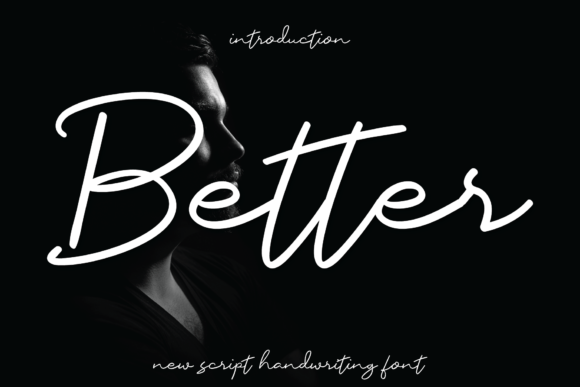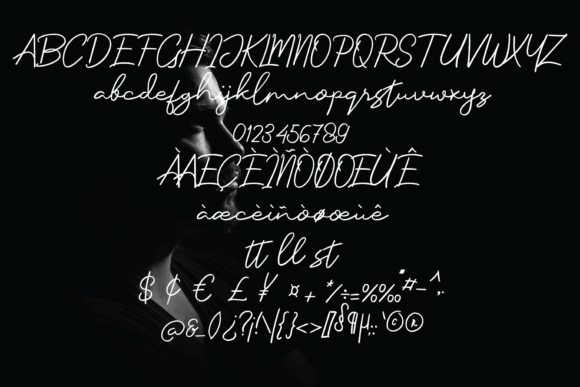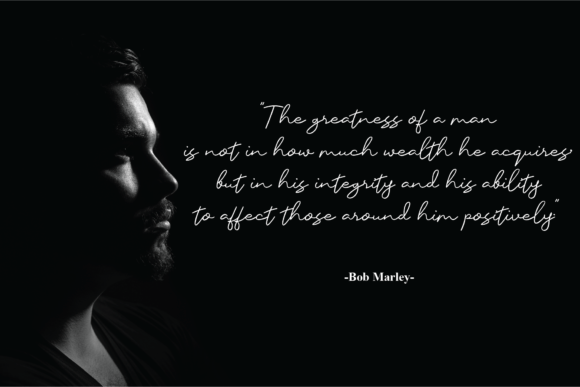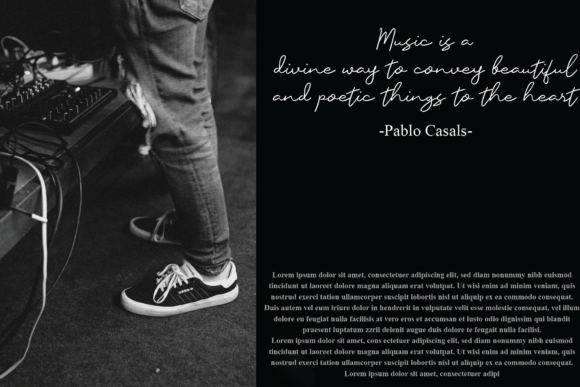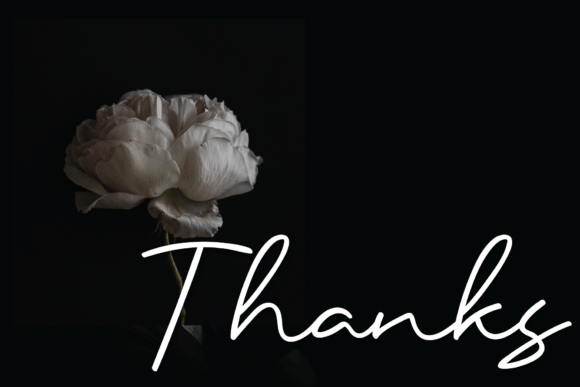
Better Font
About Better Font
Better, an exquisite handwritten font, embodies elegance with a beautiful and modern aesthetic. Its graceful strokes and contemporary appeal make it a captivating choice for a spectrum of design applications. Particularly stunning when employed in wedding invitations, thank-you cards, and greeting cards, Better also lends sophistication to business cards, logos, product designs, advertisements, and quotes. Its unique handwritten touch elevates every design, adding a layer of warmth and individuality.
The font’s beauty lies in its ability to seamlessly adapt to diverse design needs. Its versatility shines through, whether applied to formal occasions like weddings or to more casual contexts such as business branding. Better’s inherent charm transcends traditional boundaries, making it a versatile asset in the creative toolkit.
What sets Better apart is not only its elegance but also the nuanced hand strokes that it presents. The font’s design incorporates varied and interesting details, including lines, fields, and stunning alternate characters. This thoughtful craftsmanship provides designers with a rich palette to play with, allowing for endless creative possibilities. Each stroke tells a story, making Better more than just a font—it becomes a storyteller, infusing design projects with character and charm.
In the realm of handwritten fonts, Better stands as a testament to the marriage of tradition and modernity. It doesn’t just capture the timeless appeal of handwritten elements; it injects a contemporary flair that resonates with today’s design sensibilities. This makes Better an ideal choice for those seeking a balance between classic elegance and a touch of the contemporary.
Whether adorning a wedding invitation with its graceful curves or enhancing a business logo with its modern charm, Better serves as a versatile companion for designers navigating a diverse range of visual communication projects. Its stunning alternates provide the means to create truly unique and memorable designs, ensuring that each application feels tailored and distinctive.
In summary, Better is more than a font; it’s an elegant storyteller that transforms designs into visual poetry. Its handwritten allure, combined with thoughtful design elements, makes it a go-to choice for those who appreciate the timeless beauty of elegant script fonts with a modern twist.